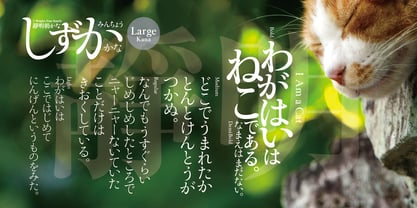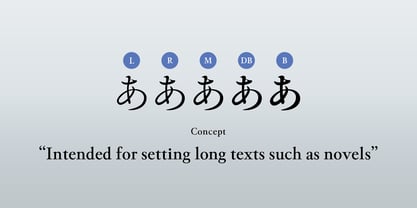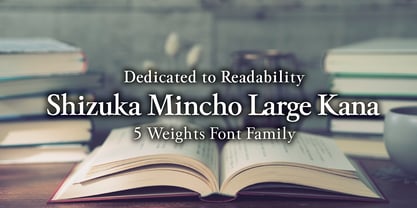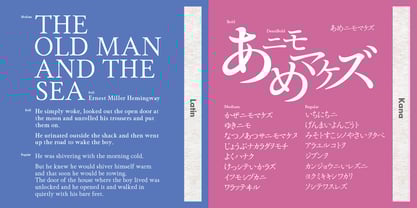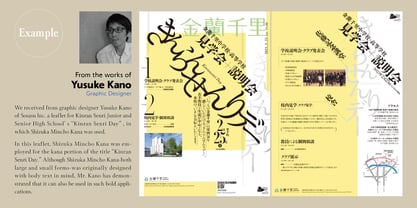
REN FONT has steadily built its reputation by repeatedly earning accolades in the Typeface category of the “Yearbook,” an exhibition organized by the Japan Typography Association (NPO). Founded in 2001 with the aim of bringing a fresh breeze to the font industry, REN FONT continues to create distinctive typefaces that stand out.
The hand-drawn-style fonts crafted by REN FONT’s type designer, Kazuo Kanai, have received high praise from professional designers and typographers for their exceptional quality.
A Message from Kazuo Kanai
With the exception of our comprehensive typeface Waon, our company has been particularly dedicated to producing kana fonts in the traditional Mincho and Gothic styles. Most of these fonts have been developed as multi-weight families — and there’s a good reason for that.
In Japanese text, kana characters account for roughly 70% of the total. Even so, kana fonts have little significance on their own; it is only when combined with kanji that they take on “meaning” and come to life.
Most vendors offer font weights in seven to nine variations, from “Light” to “Ultra,” but there are no universal standards for these weight categories — each vendor defines them differently. As a result, a “Light” weight from one vendor may differ subtly in thickness from another. For kana fonts to pair harmoniously with such variations and truly come alive, a finer gradation of weights is essential.
This is why our kana fonts feature such detailed weight variations.
Simply changing the kana can greatly enrich the expression of a typeface.
We hope you will make the most of our kana fonts, blending them freely with other typefaces to create combinations that perfectly suit your taste.
A Focus on Readability
Shizuka Mincho Large Kana 5-Weight Font Family
A straightforward form ideal for novels and long text.
While 靜明朝大かな (Shizumi Mincho Large Kana) resembles traditional typefaces, it is not a revival. Instead, it is a well-balanced design that blends a modern sensibility into a classical form. Mincho kana often carry distinctive quirks, but Shizuka Mincho minimizes those idiosyncrasies to achieve a clean, straightforward impression. The typeface comes in two versions: Large Kana and Small Kana. This font is the Large Kana version, optimized for horizontal typesetting, offering a clear and highly readable form well-suited to contemporary literature.
Based on the everyday handwriting of our type designer Kazuo Kanai, Shizuka Mincho combines the formal structure of traditional Mincho with a touch of modern refinement. The family includes five weights—Light (L), Regular (R), Medium (M), Demi-Bold (DB), and Bold (B). While it preserves an old-style atmosphere, its large kana design is not constrained by convention, giving it the versatility to adapt to modern composition needs.
Why It Excels in Horizontal Typesetting
Today, horizontal text has become the standard, with most documents laid out this way due to functionality and the increased mixing of Japanese with English. Yet kana were originally designed for vertical writing, and setting them horizontally often causes issues. Many kana characters are naturally narrow, which creates awkward spacing when used in justified horizontal text, reducing readability. In fact, we are accustomed to reading text that is less legible than it could be simply out of habit.
Shizuka Mincho Large Kana addresses this by slightly widening the narrow kana and enlarging the overall proportions. This reduces irregular spacing, resulting in smoother flow and greater legibility for horizontal text layouts.